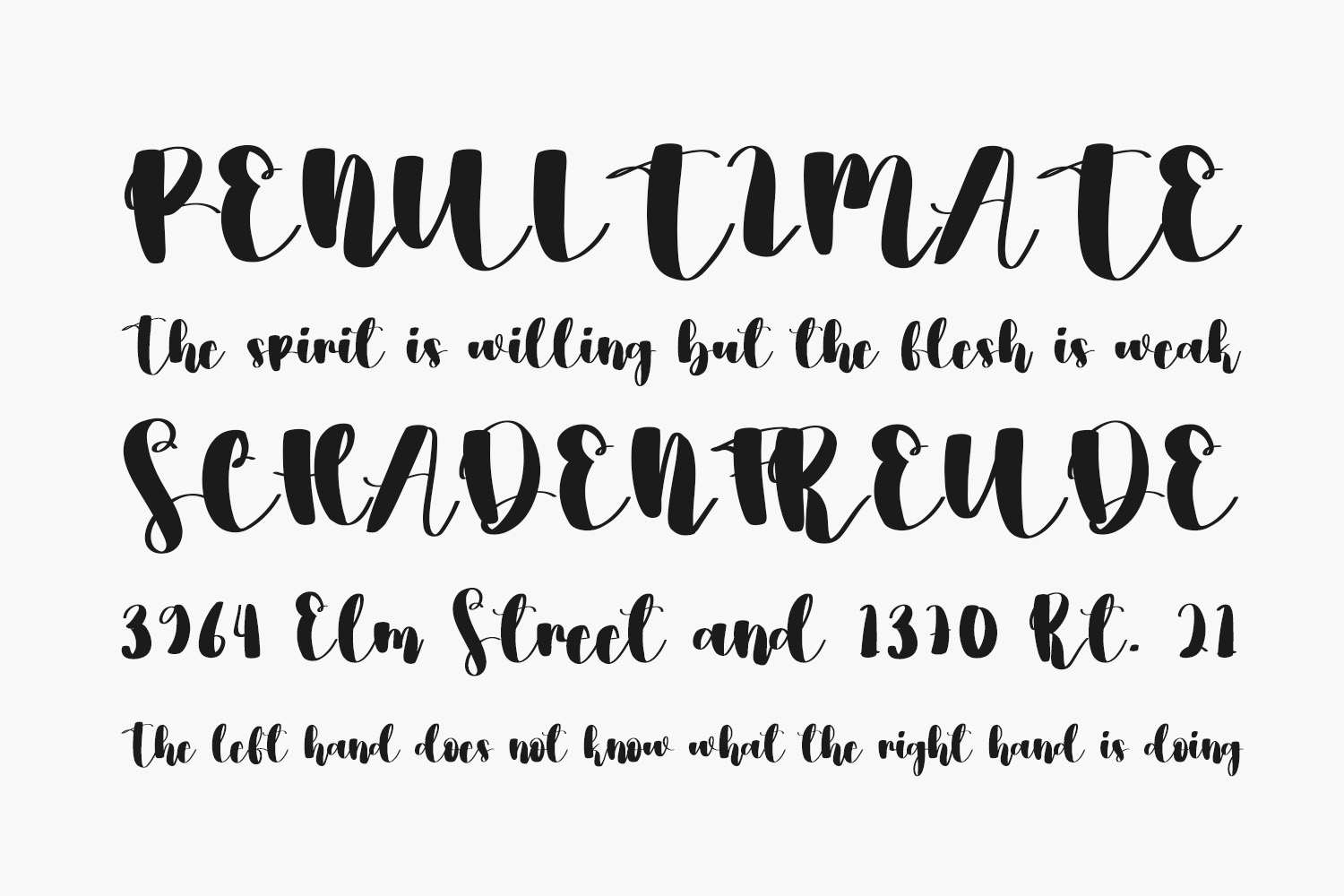
School Free Font is an elegant and sophisticated font that exudes the timeless charm of calligraphy. With its fluid and graceful lines, it is perfect for creating stunning designs for invitations, posters, and other formal documents. This free font is a versatile choice for any designer looking to add a touch of class to their work.